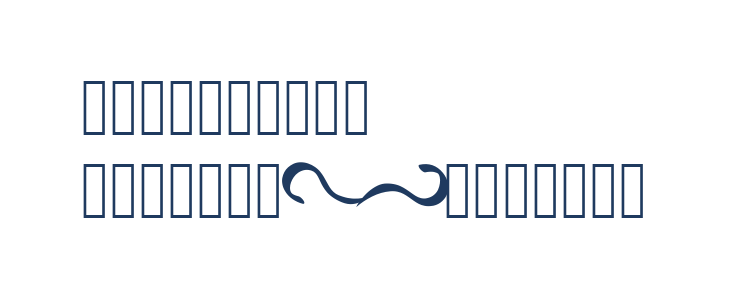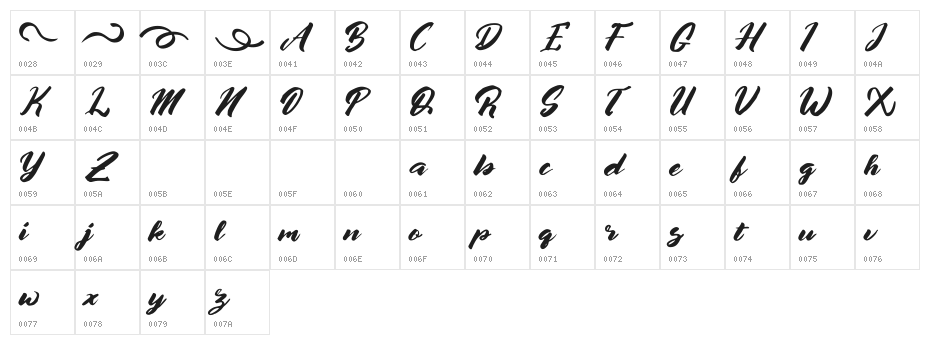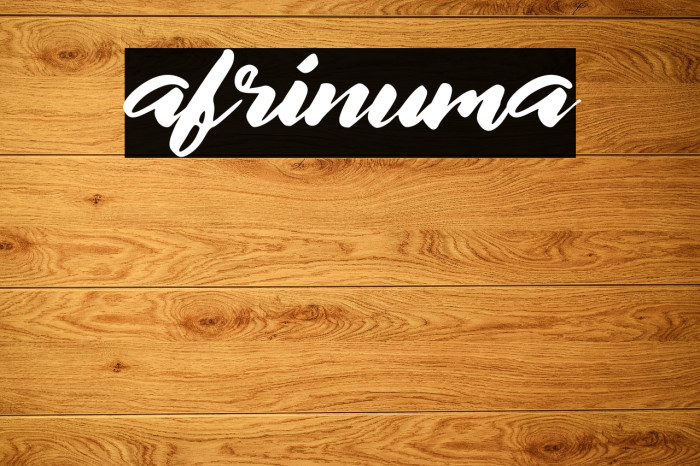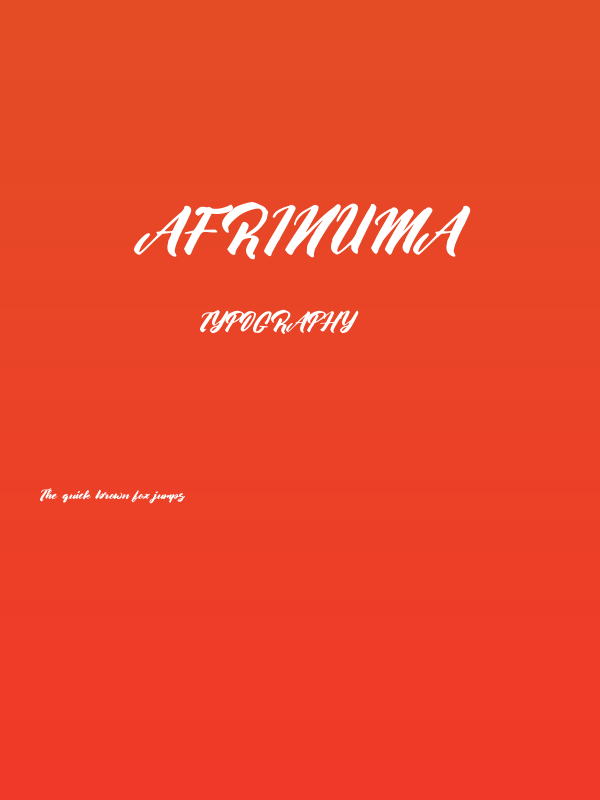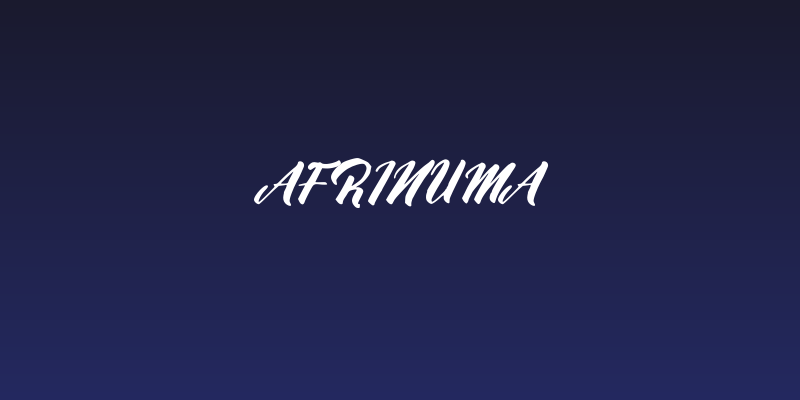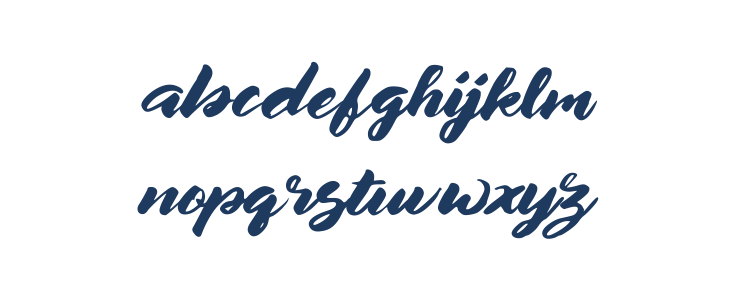
afrinuma Font
afrinuma Description
This font features a dynamic and flowing script style, characterized by its elegant and cursive letterforms. The uppercase letters are bold and sweeping, with a distinct slant that adds a sense of movement and grace. The lowercase letters maintain a consistent flow, with smooth connections between each character, enhancing its handwritten appearance. The font exhibits a high contrast in stroke thickness, with thick downstrokes and thinner upstrokes, contributing to its dramatic and expressive look. This style is reminiscent of traditional calligraphy, yet it maintains a modern flair, making it versatile for various design applications.
| Use Case | Logos, Invitations, Branding |
| Proposed Projects | Ideal for wedding invitations, branding, logos, and elegant packaging designs. |